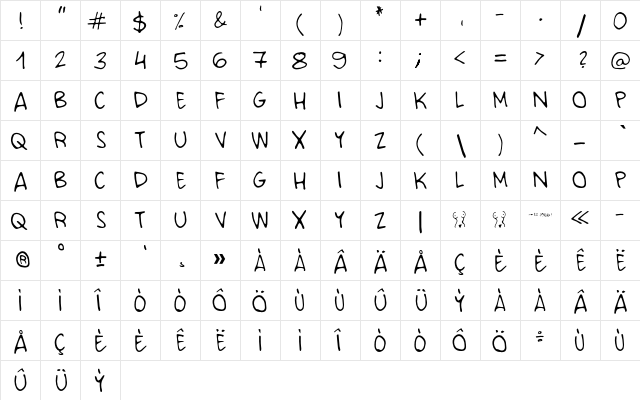
CZINEGE Regular
| Foundry | AXN |
| Designer | Fanyuvo |
Design Context for CZINEGE Typeface
CZINEGE takes a measured approach to typography — its balanced proportions and neutral character make it a reliable workhorse for both digital and print work.